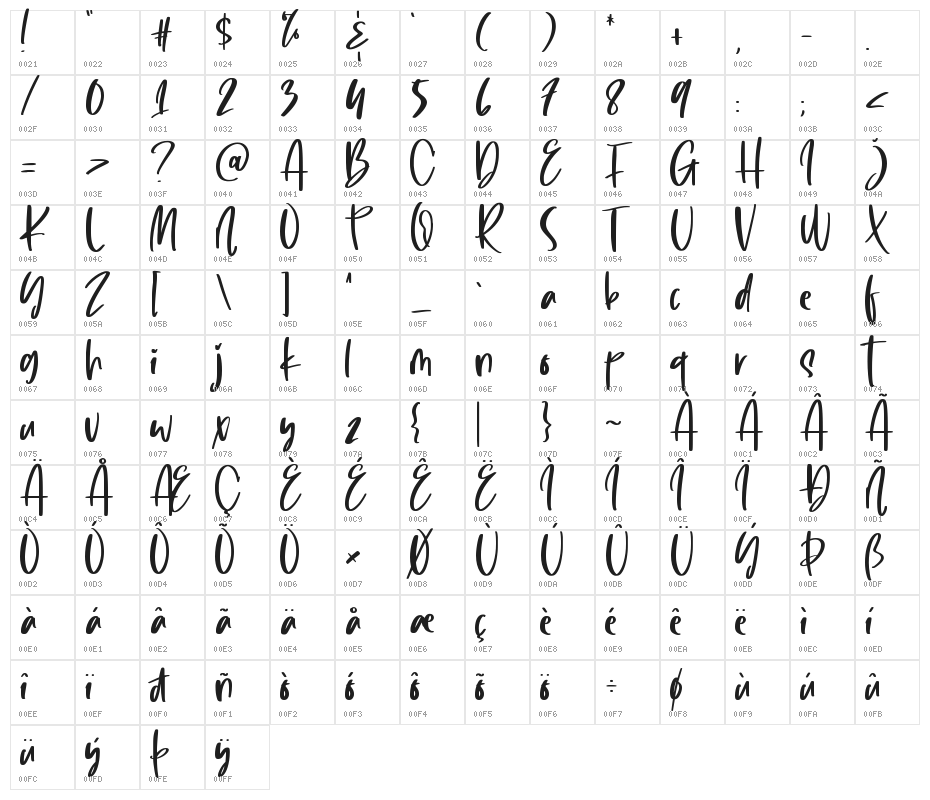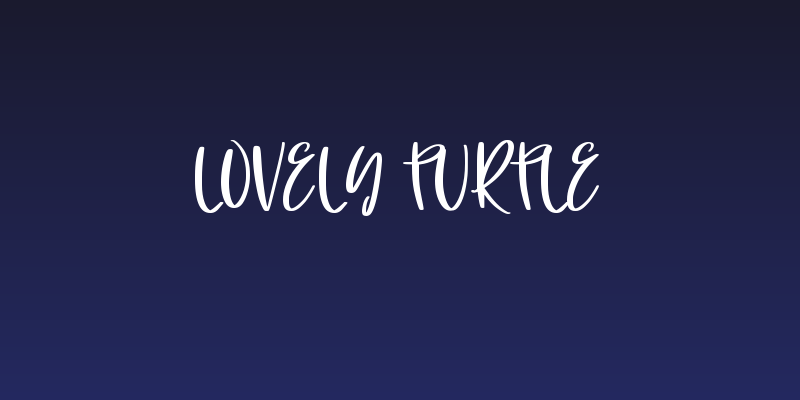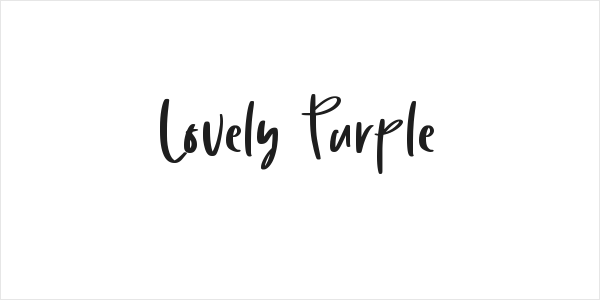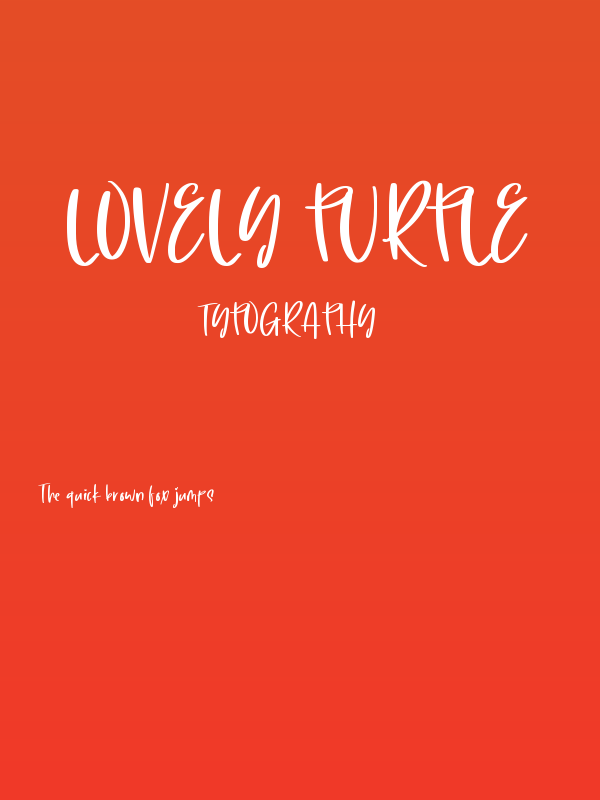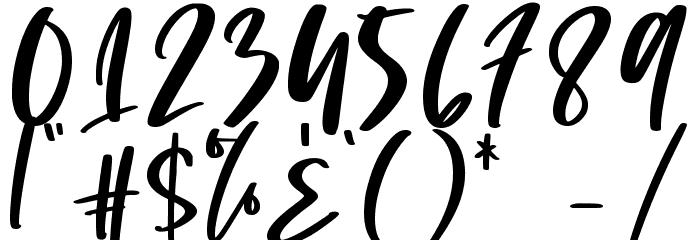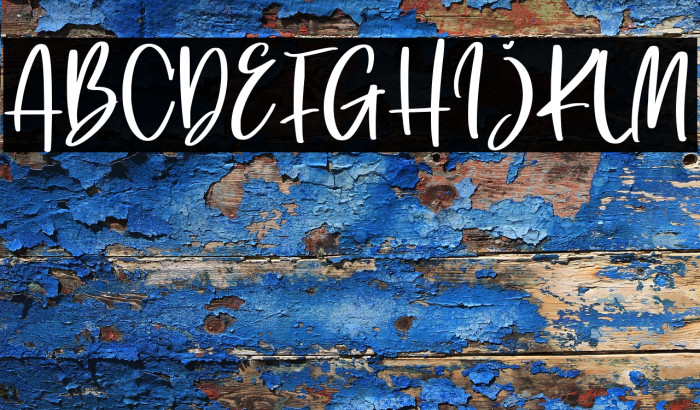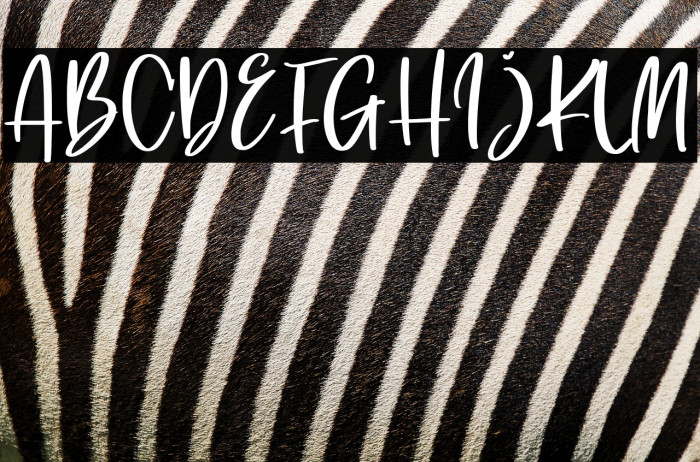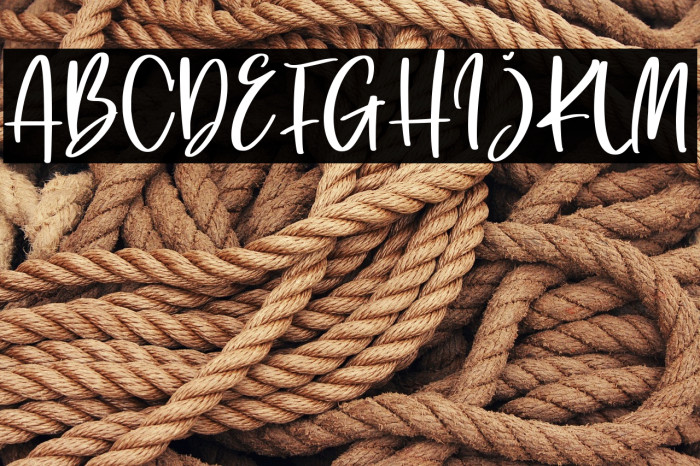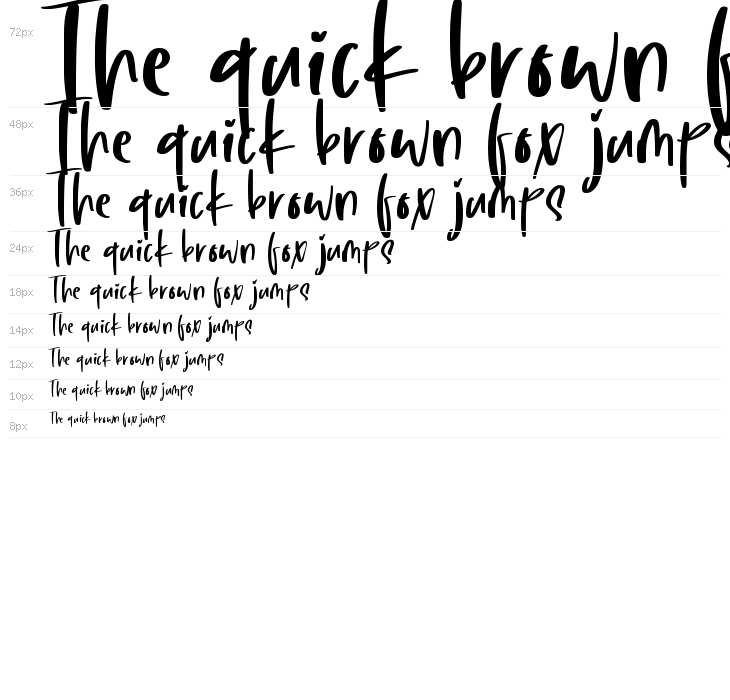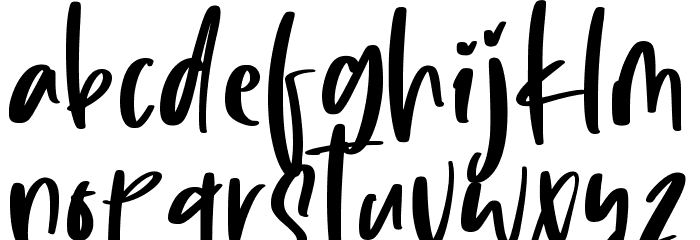
Lovely Purple Font
This font exhibits a lively and expressive handwritten style, characterized by its bold and fluid strokes. The uppercase letters are tall and slightly narrow, with a playful, energetic flair that suggests movement and spontaneity. The lowercase letters maintain this dynamic quality, with some characters featuring unique loops and curves that add to the font's charm. The numbers are consistent with the overall style, offering a cohesive look. Special characters are creatively integrated, maintaining the font's whimsical nature. The overall appearance is both modern and artistic, making it suitable for projects that require a personal touch.